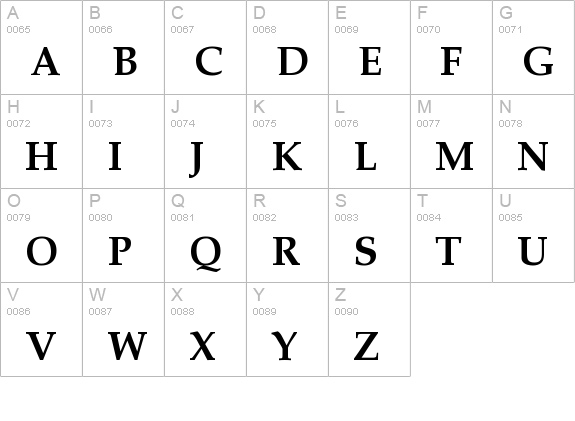
PalmSprings Bold Font Details
PalmSprings Bold is a strong, high-contrast variant in the PalmSprings typeface family \xE2\x80\x94 well suited to headlines, attention-grabbing titles, and strong calls-to-action.
Introducing PalmSprings Bold, a stunning display font that exudes confidence and sophistication. With its bold and strong letterforms, this typeface commands attention and makes a powerful statement in any design project. PalmSprings Bold is perfect for headlines, logos, posters, and any other design where you want to make a bold impact. Its elegant and modern style will give your work a touch of class and professionalism. But what sets PalmSprings Bold apart is that it is not just a beautiful font, it is also free! Yes, you read that right. This amazing font is freely available to download at FontsMarket.com, so you can start using it in your designs right away. Whether you're a professional designer or a creative enthusiast, PalmSprings Bold is a must-have addition to your font collection. Its versatility and boldness will elevate your designs to new heights, making them stand out from the crowd. So don't miss out on this incredible opportunity to enhance your design projects with PalmSprings Bold. Download it for free at FontsMarket.com and let your creativity shine.